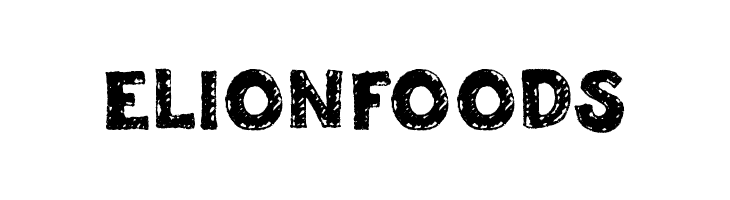
A bold, geometric 3D font with a futuristic and digital aesthetic.
( Fonts by Kimberly Geswein )
A playful font with characters designed to look like they are drawn on pencils.
( Fonts by Nirmana Visual )
A bold, graffiti-style font with shadowed, jagged letters.
( Fonts by Nirmana Visual )
A bold, graffiti-style font with dripping effects and shadowed, three-dimensional letters.
( Fonts by Yoga Letter )
A distressed, textured font with a gritty, raw aesthetic.
( Fonts by Masa Aska Sanurumi )
A bold, textured font with a distressed, grunge-like style.
( Fonts by creativetacos )
A bold, distressed font with a grunge texture, perfect for spooky designs.